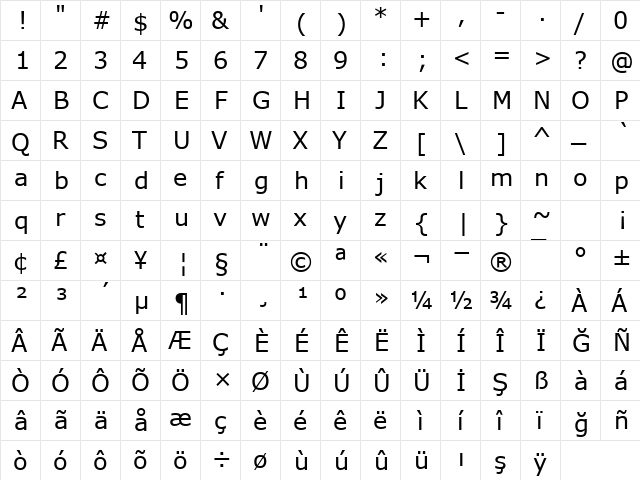
Verdana Digiscream Normal
Design Context for Verdana Digiscream Typeface
Verdana Digiscream offers clean, dependable letterforms without strong stylistic allegiance, making it a practical choice for designers who need flexibility.
Pro Tip: Use Verdana Digiscream in both headline and body roles to test its range before committing to a single application.